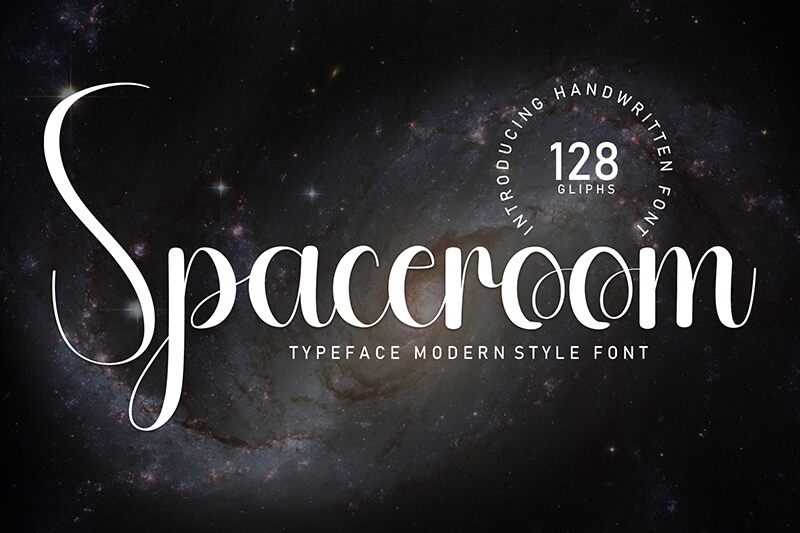
Spaceroom font designed by Andi Moz presents a smooth flowing script creation that is elegant and expressive. It features thin connecting letters that are stylish and unique. The font contains lowercase and uppercase characters, numerals, and punctuation used to enhance your designs. This font is ideal for contemporary use since it fits its minimal and modern aesthetic.
Apply Spaceroom in branding, packaging, editorial design, magazines, covers, banners, invitations, and more. Use it to write quotes and any text where elegance is intended. It is also great for type-based logos, advertisement designs, and posters.